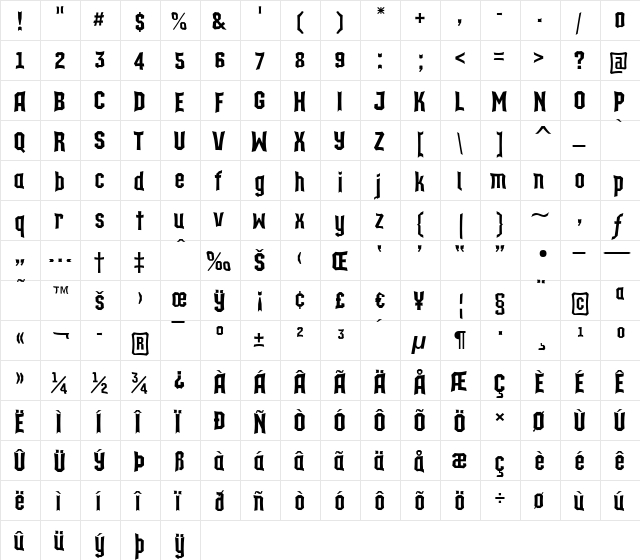
a_TechnocratCnc Regular
| Designer | W.Chufarofsky & M.Slutsker |
Design Context for a_TechnocratCnc Typeface
a_TechnocratCnc has a distinctly futuristic character, with geometric precision and clean angles that feel at home in technology, gaming, and sci-fi contexts.